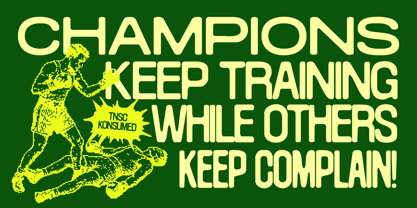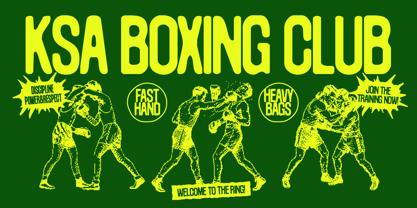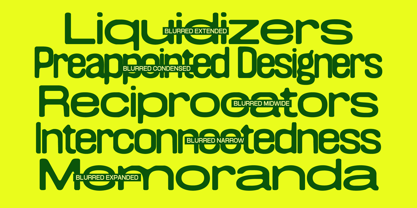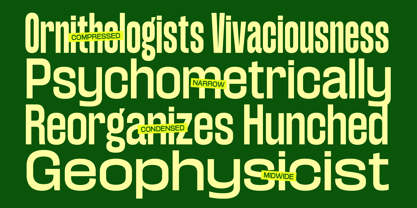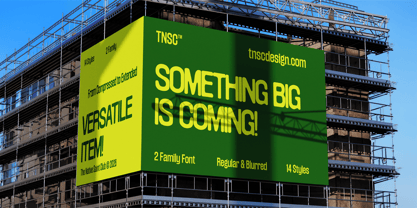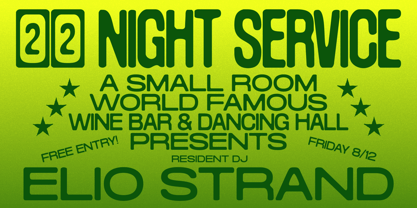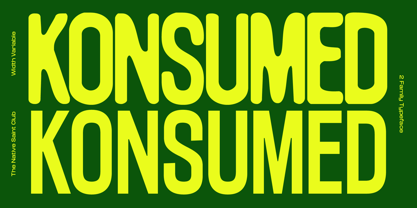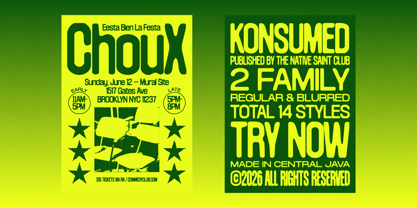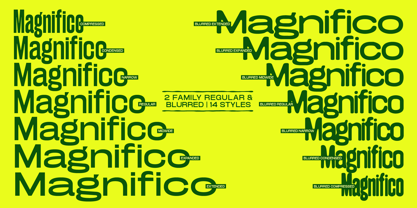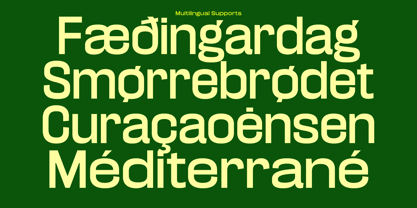
Konsumed
par The Native Saint Club
La famille de polices Konsumed a été conçue par Bagas Ferdiansah, Septianto Nugroho et publiée par The Native Saint Club. Konsumed contient 14 styles et options de package familial. En savoir plus sur cette famille
TNSC Konsumed is a display sans serif designed for expressive and modern visual work. It comes as a versatile font family with regular and blurred styles, allowing you to create unique looks from clean and solid typography to dynamic blur effects. With a flexible width system from compressed to extended, Konsumed gives you full control to build strong layouts and eye catching headlines. Perfect for posters, branding, editorial design, sports graphics, packaging, and digital projects.